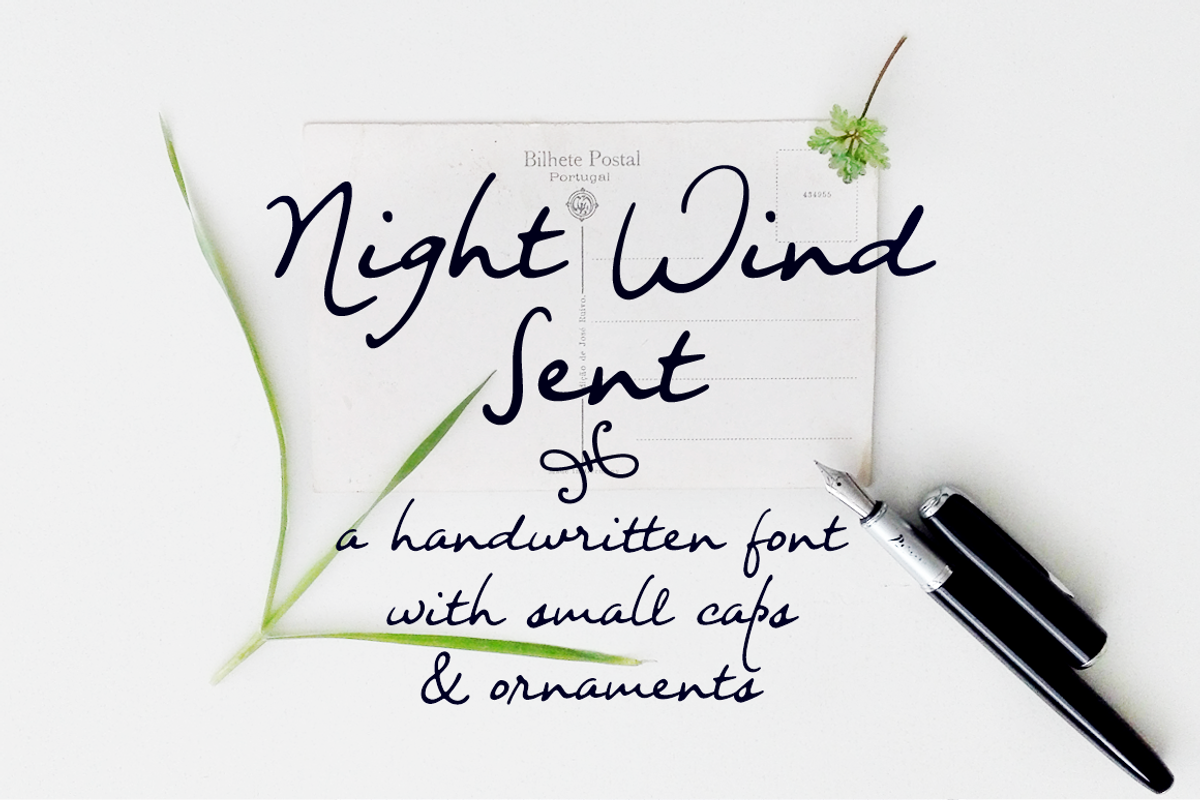
Night Wind Sent handwritten font Free Download
Night Wind Sent Handwritten Font Free Download is a delicate and expressive script font that captures the quiet beauty of handwritten notes under moonlight. Please note: you must purchase this font for commercial use, but you can test it through a free download. With its soft curves, natural flow, and poetic feel, Night Wind Sent is perfect for wedding invitations, romantic quotes, branding, journals, and social media graphics.
This font brings a personal and emotional touch to your designs—ideal for creators who want their message to feel intimate, elegant, and heartfelt. Whether you're crafting a dreamy logo or designing stationery with soul, Night Wind Sent Handwritten Font Free Download adds handwritten authenticity and charm. Fully compatible with Adobe Illustrator, Photoshop, Canva, and more. Download it today for personal use and let your designs whisper with the gentle grace of Night Wind Sent.